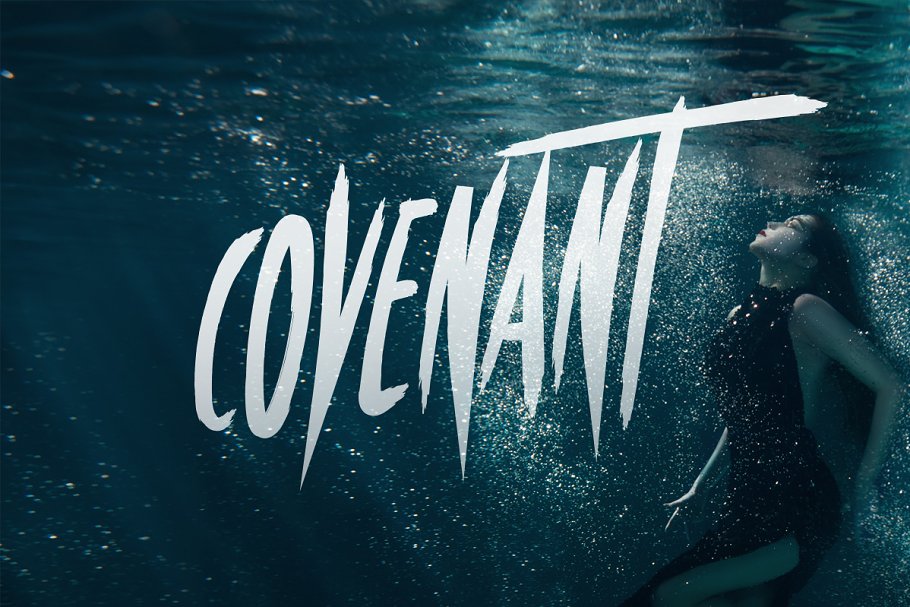
Introducing Covenant, the script font that will elevate your social media game with its bold and captivating design. Created by the talented Mehmet Tugcu, this font is the perfect addition to your collection of brush fonts.
What sets Covenant apart from other fonts is its ability to make your hashtags stand out. It's no secret that bold and eye-catching hashtags are the key to success on social media, and Covenant is the best font for the job. With its striking uppercase letters, numbers, and punctuation, your posts are sure to stand out from the crowd.
Not only is Covenant functional, but it's also aesthetically pleasing. The fluid strokes and delicate curves give your text a natural and organic feel that is perfect for any project. Whether you're creating a logo, a poster, or a social media post, Covenant is the perfect choice.